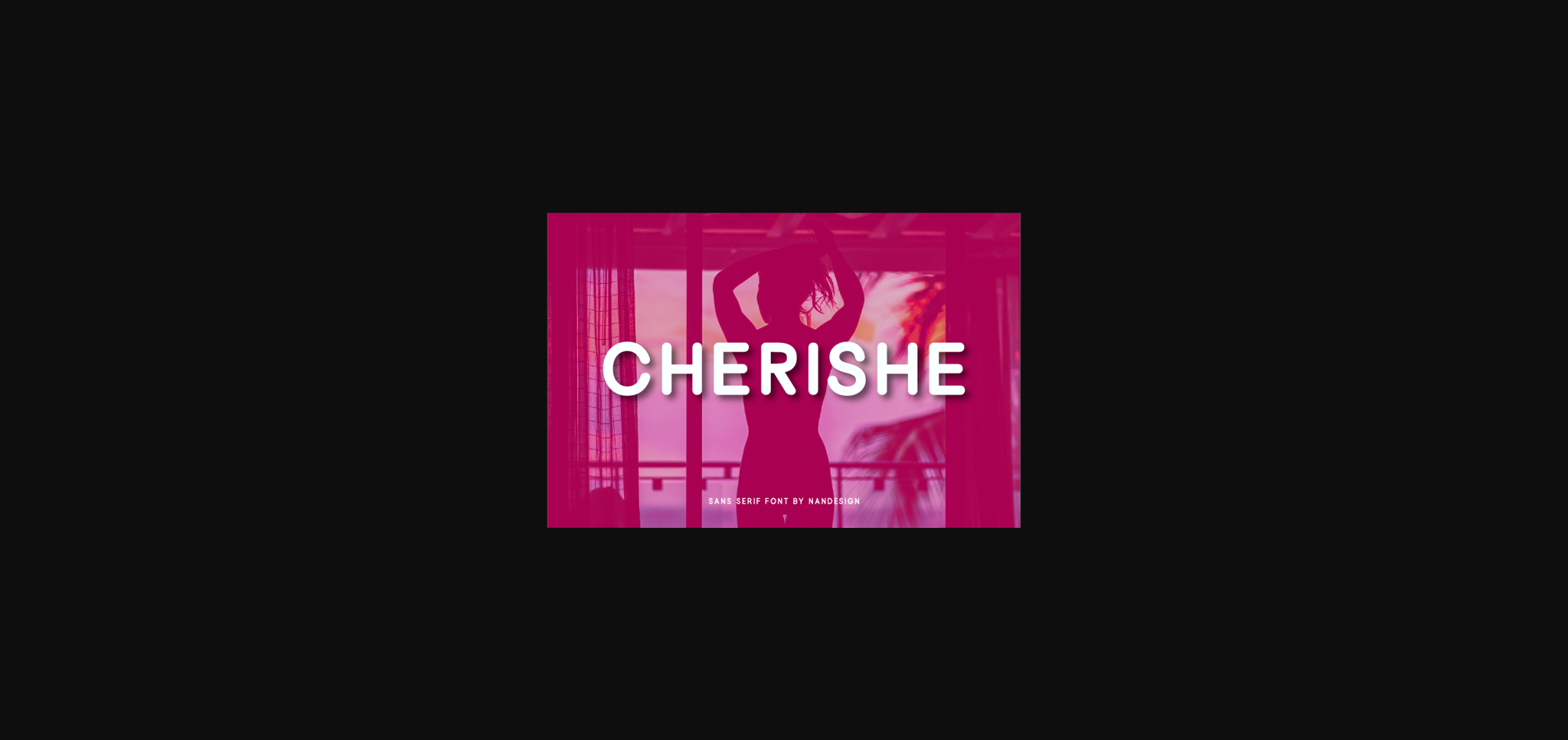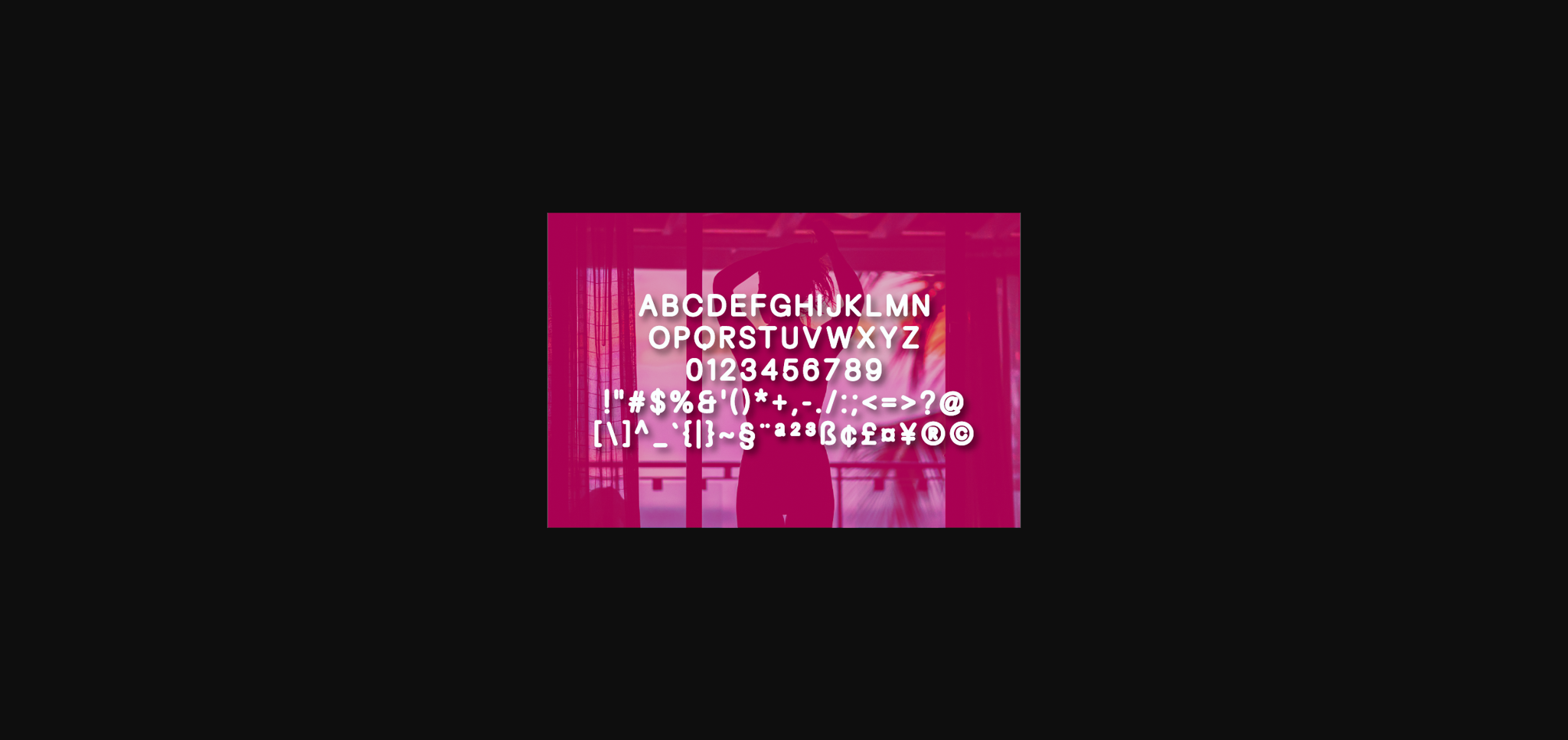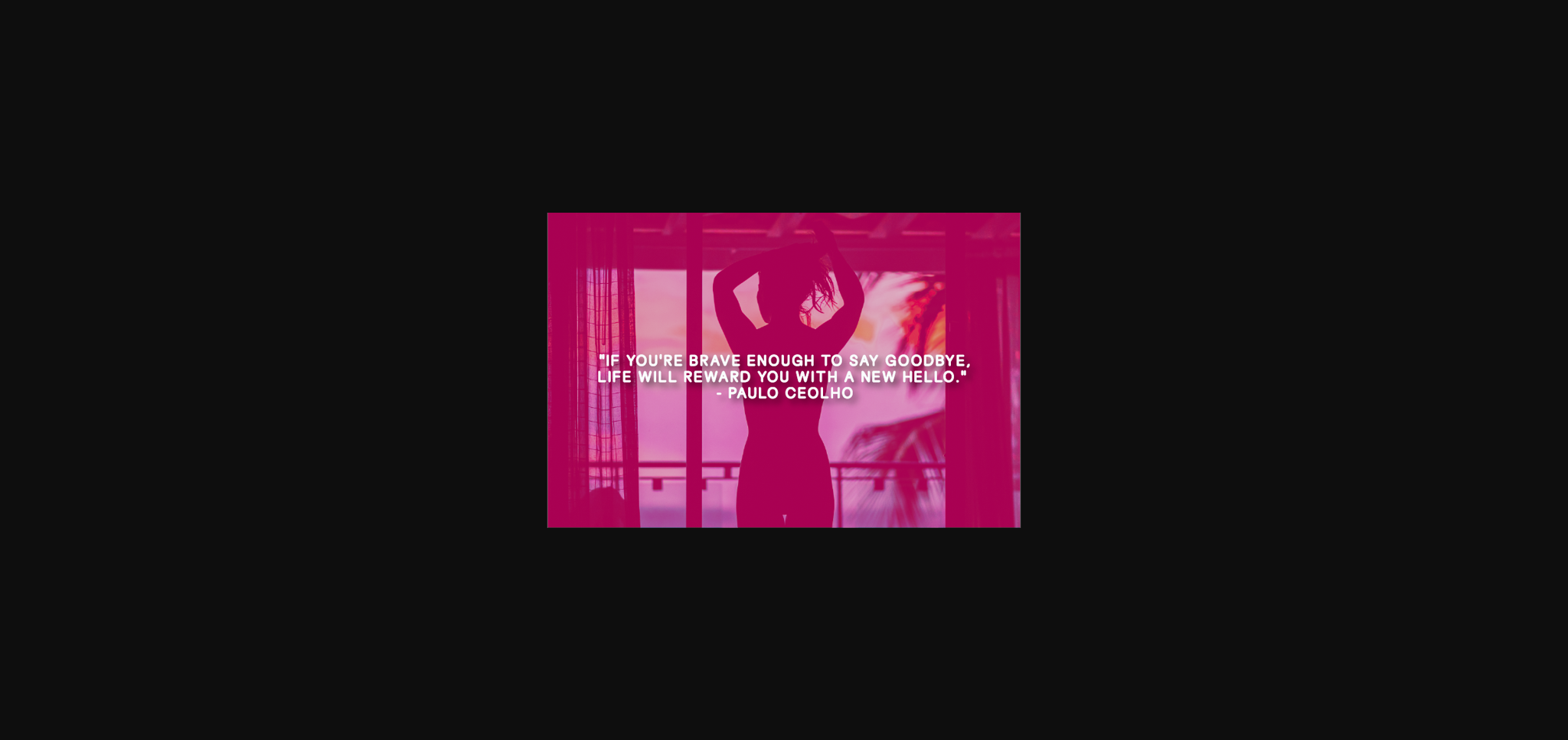
About Cherishe Font
Cherishe is a nice looking sans serif font, that will complement every design you’re currently developing. No matter the topic, this font will be an incredibly asset to your fonts’ library, as it has the potential to elevate any creation.